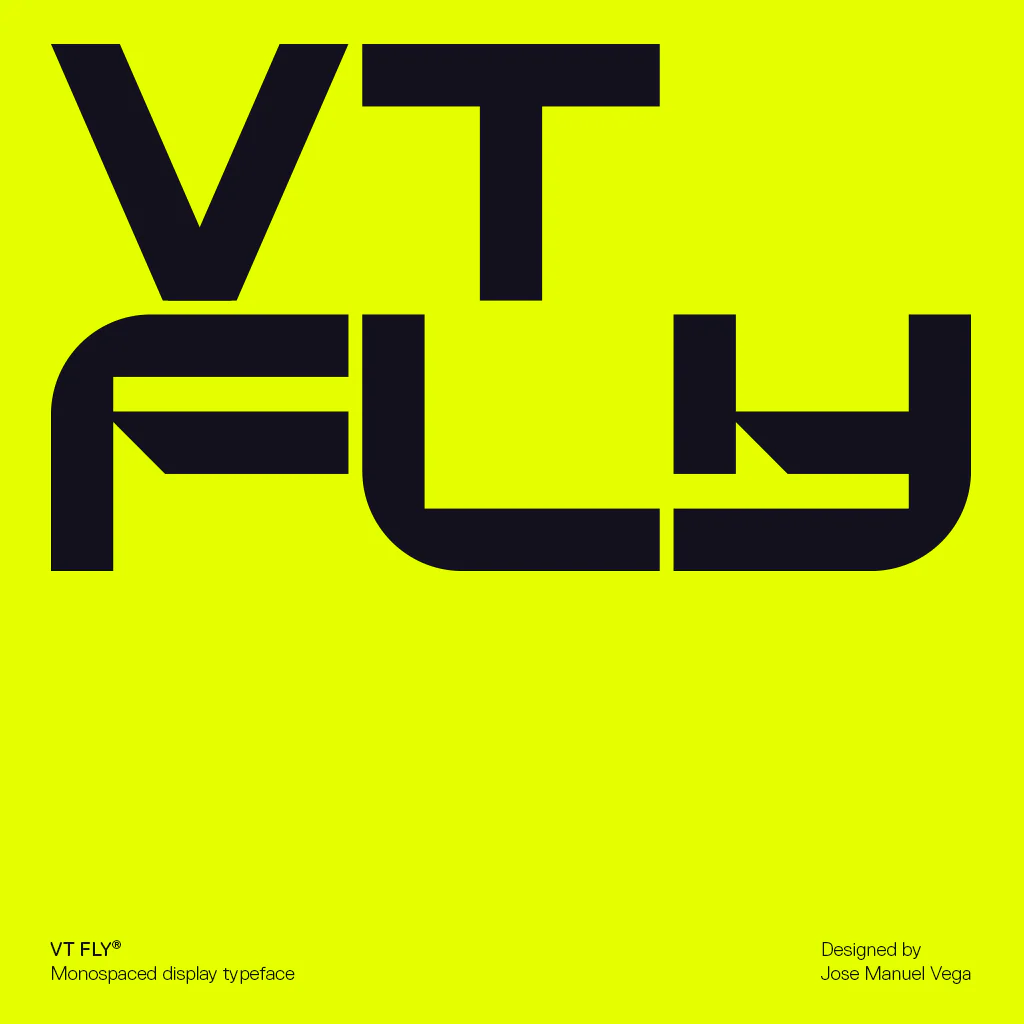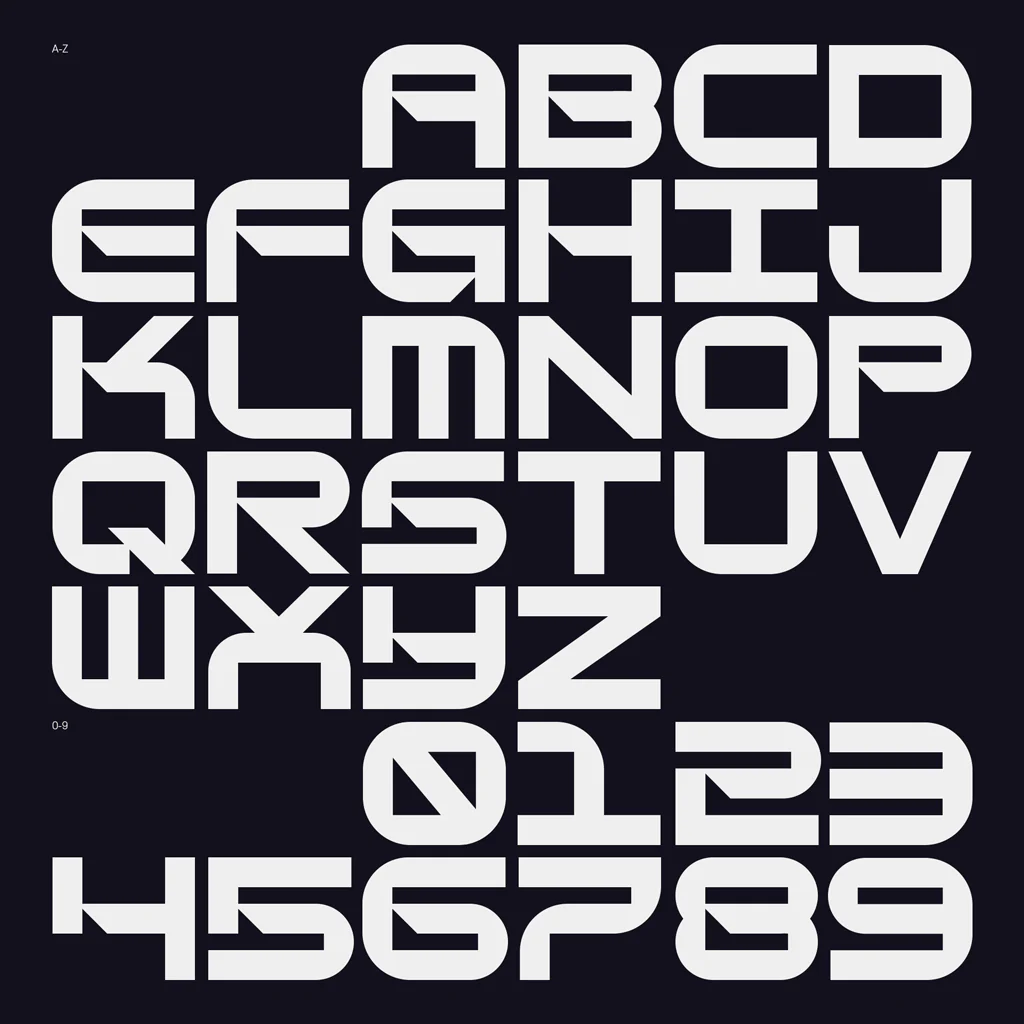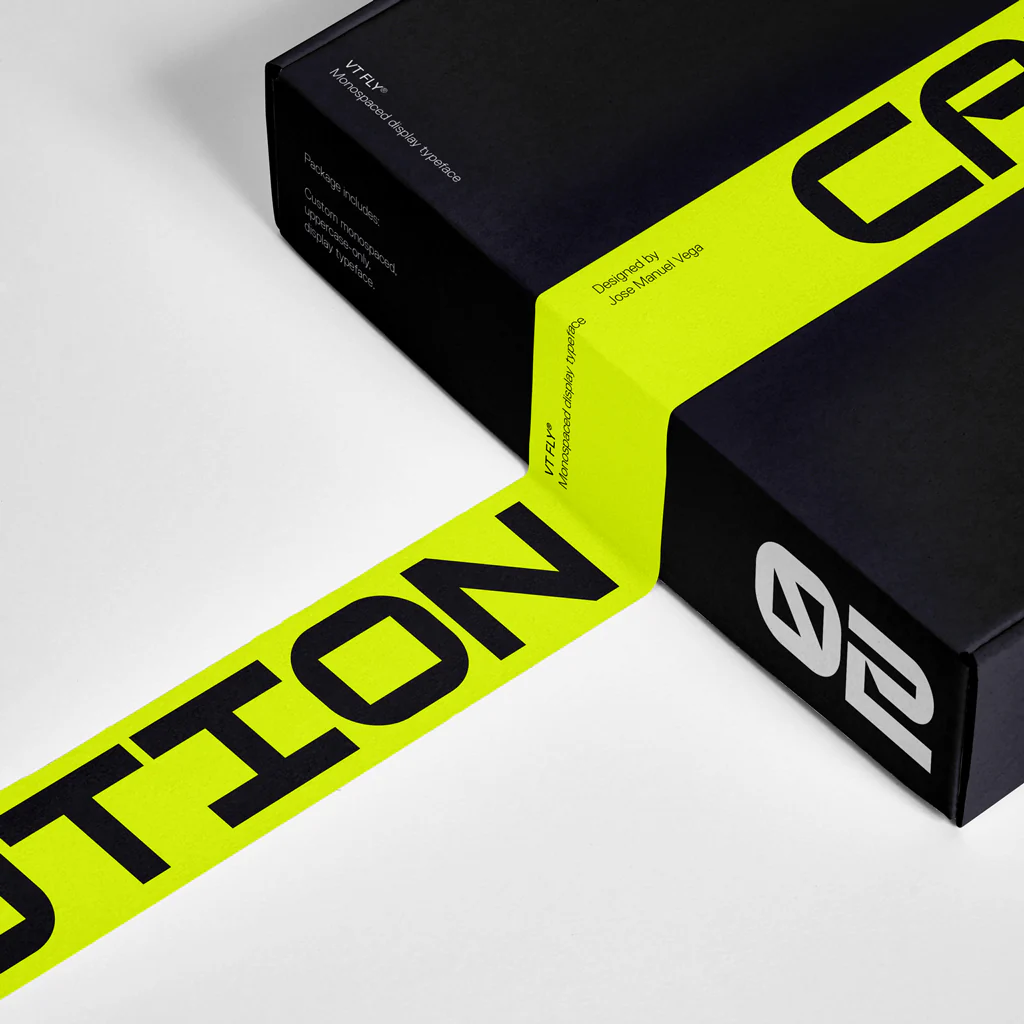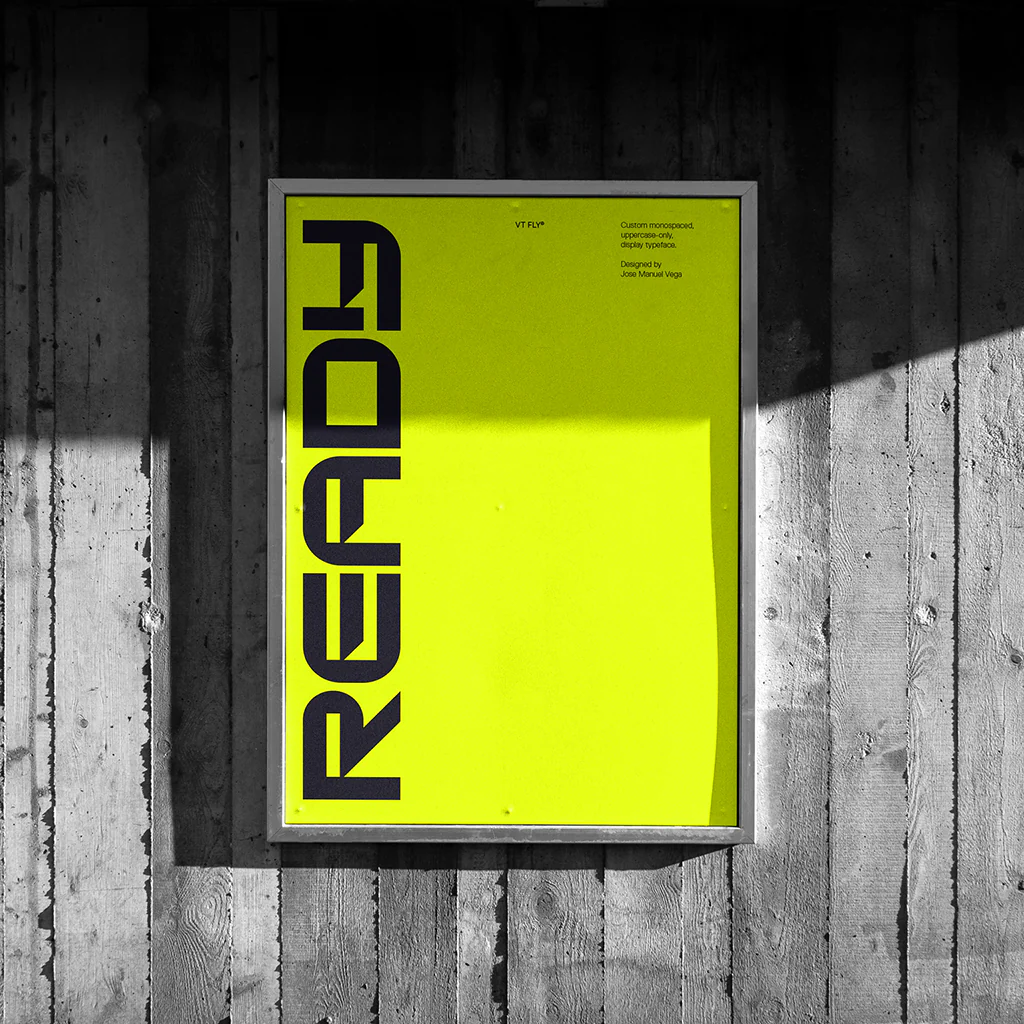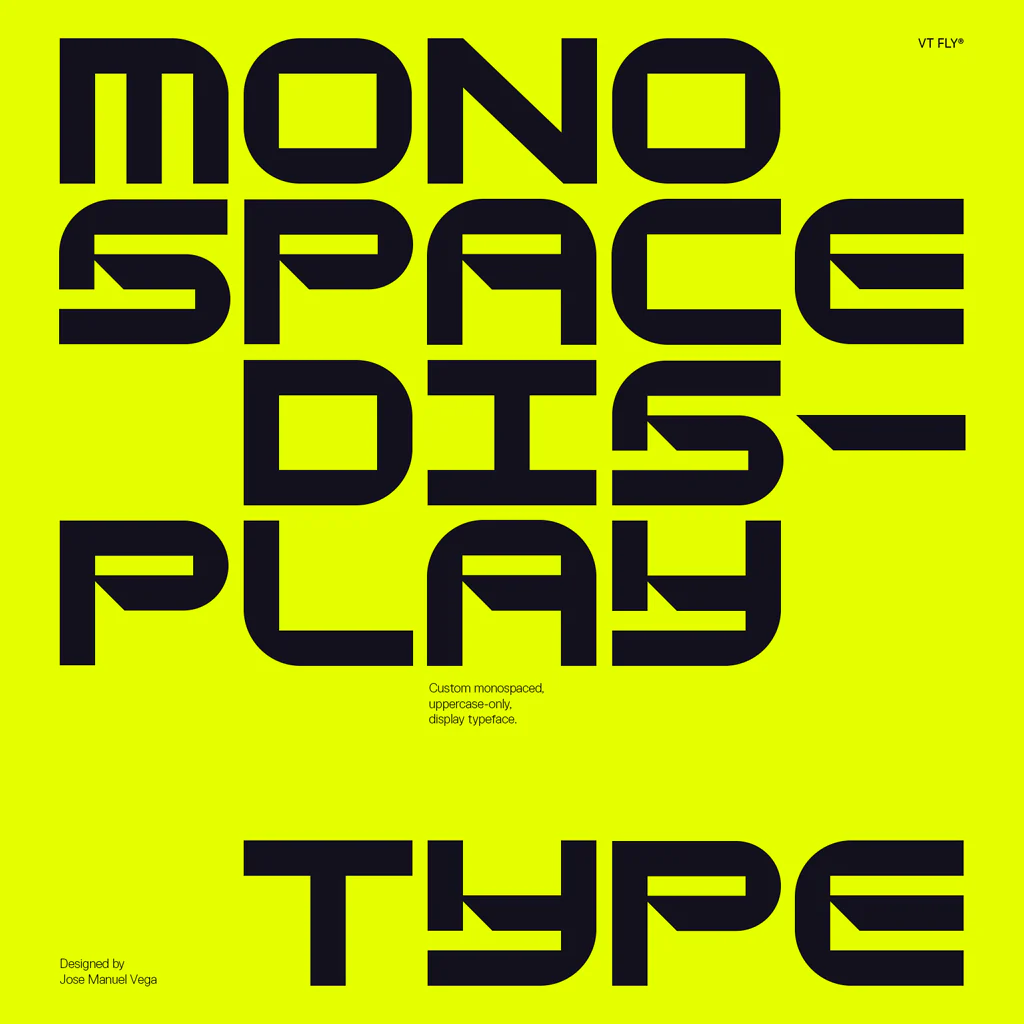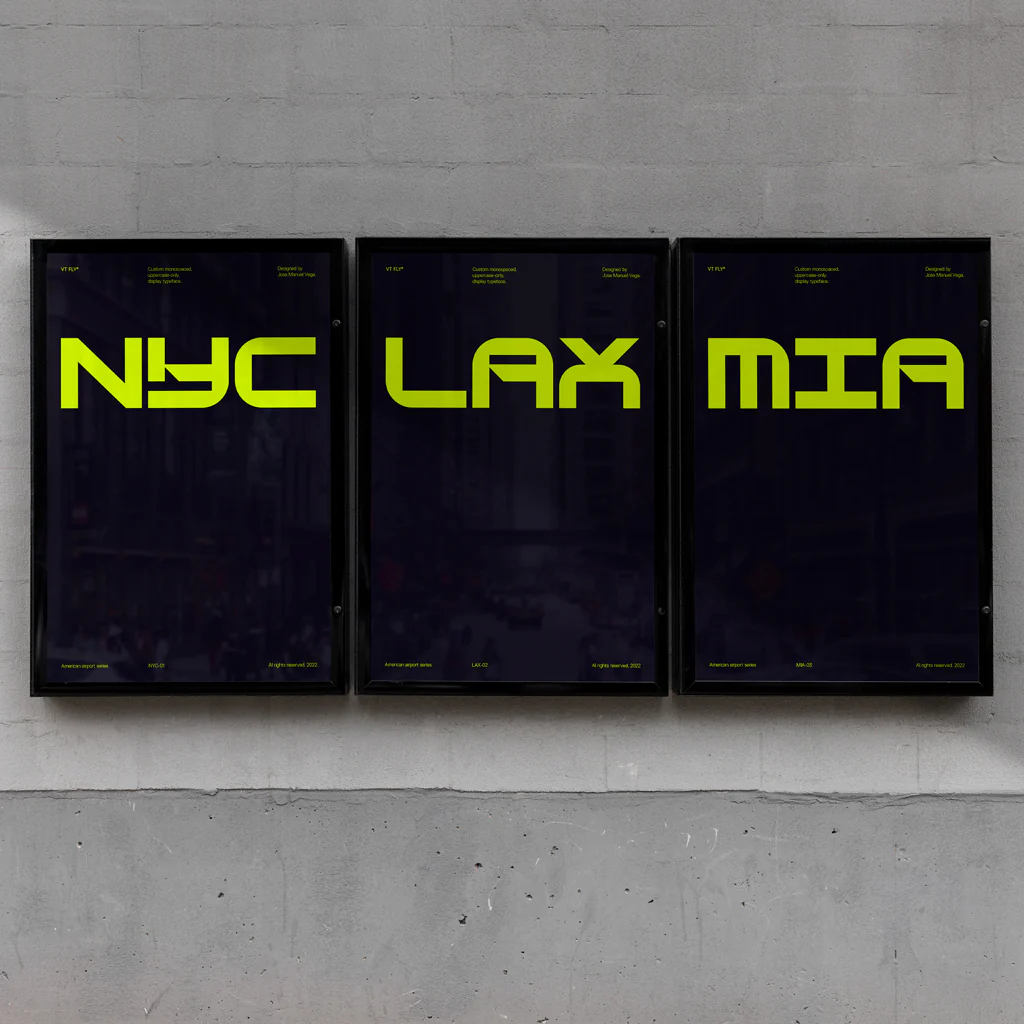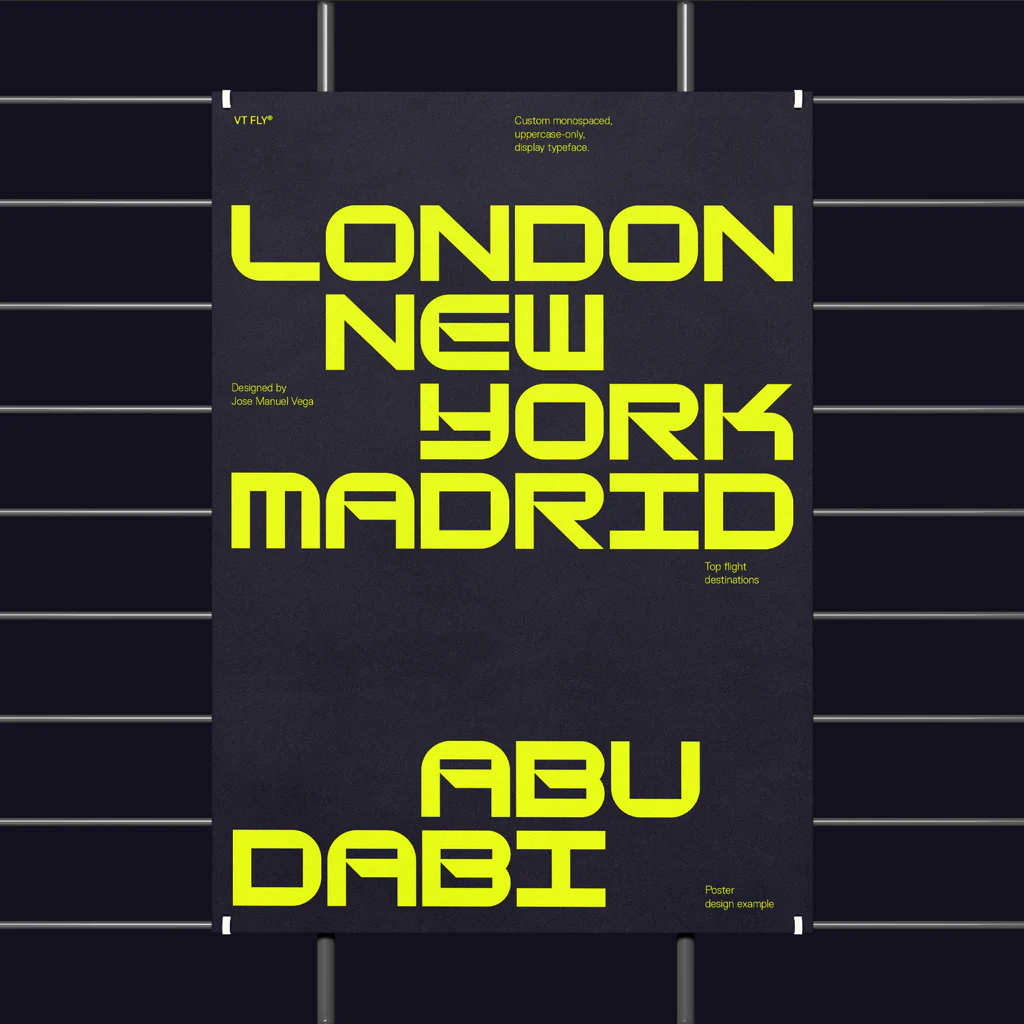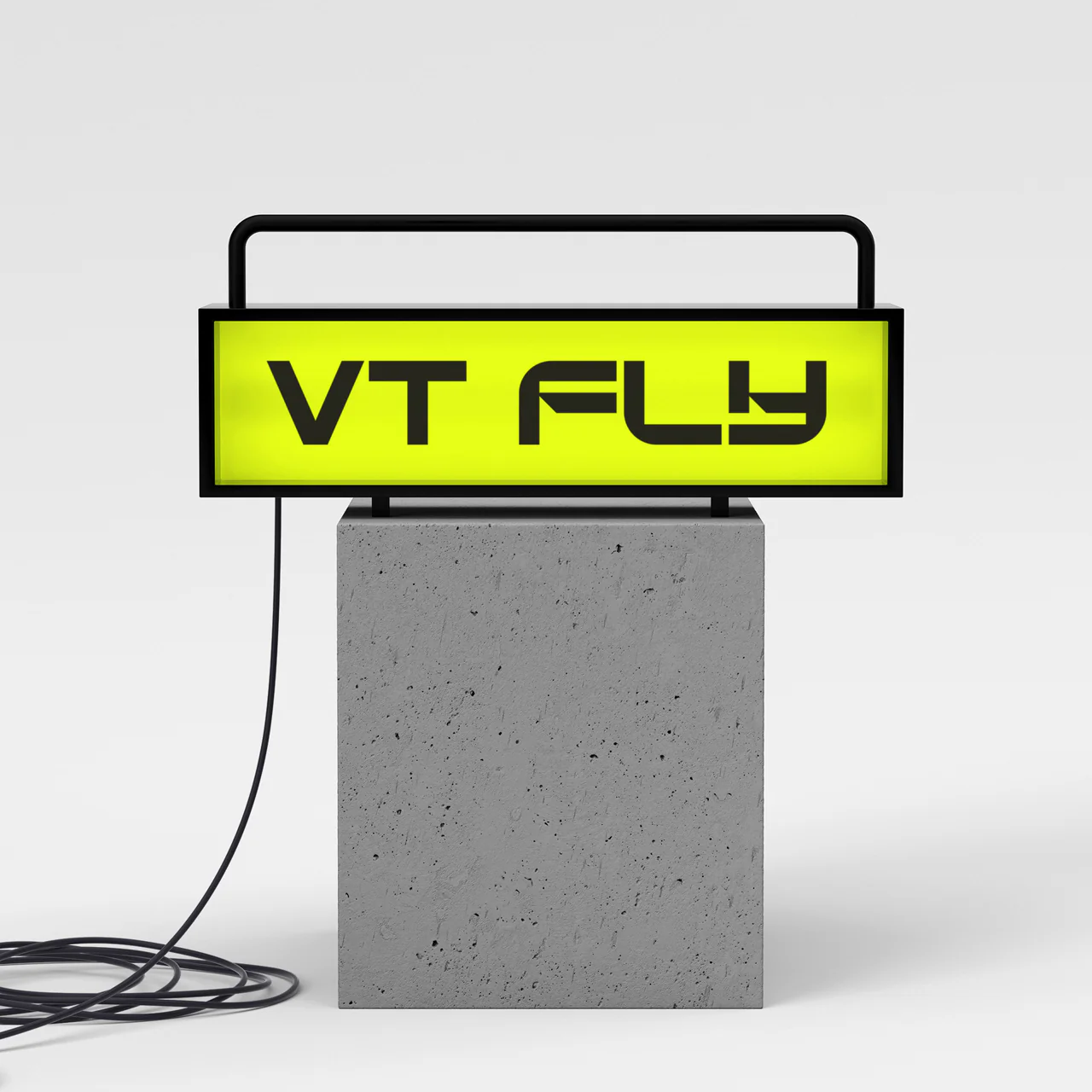
VT Fly
This display typeface is ideal for creating eye-catching headlines and memorable logotypes that exude a sense of speed and modernity.
VT Fly
This display typeface is ideal for creating eye-catching headlines and memorable logotypes that exude a sense of speed and modernity.